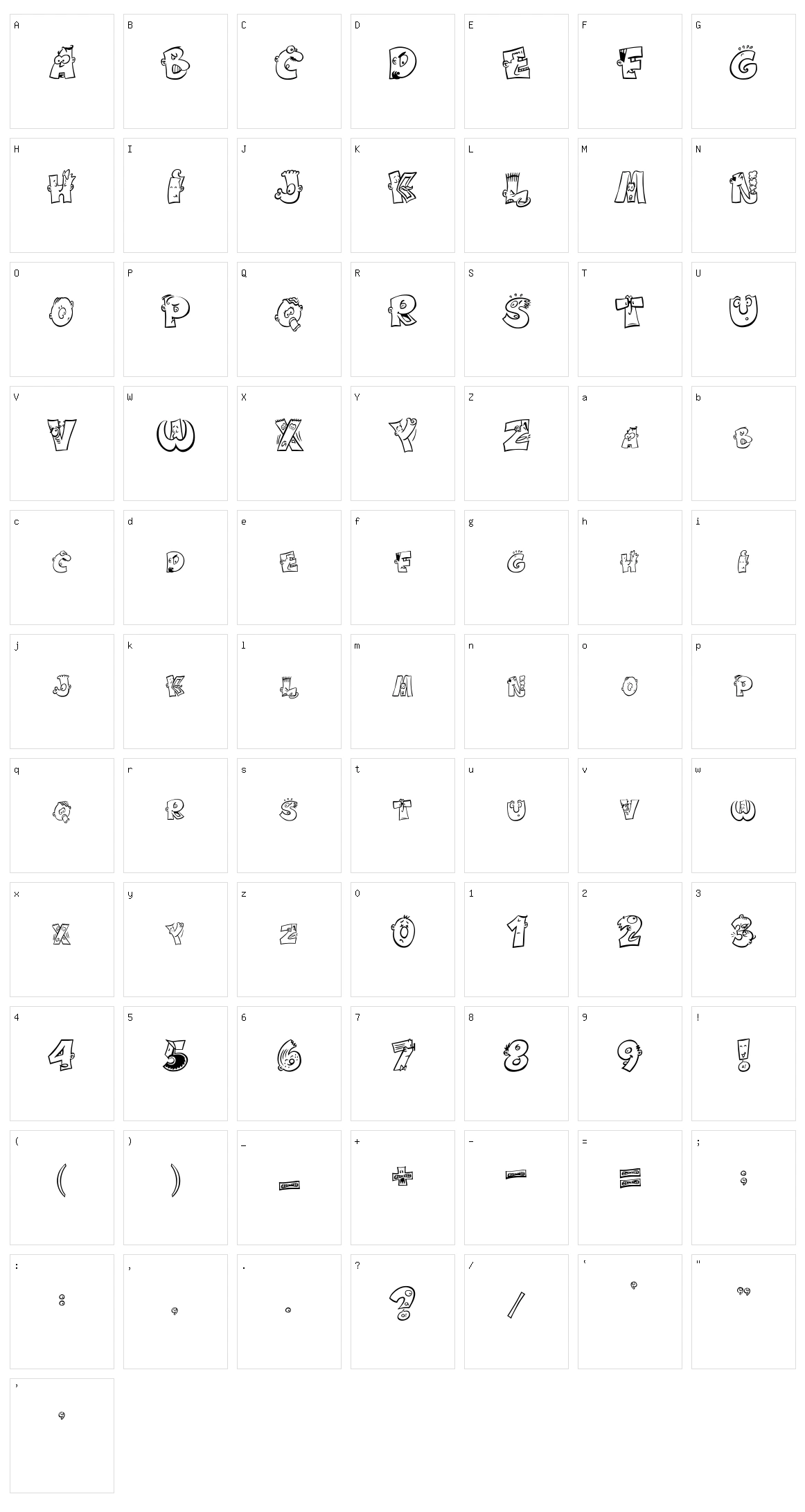
The free font Caricature is carefully designed by Magix.L, showcasing a thoughtful balance of creativity and usability and falls under the Cartoon font style. When you download the ZIP file, it contains only 58.81 KB of font files, making it lightweight and quick to download. Please review the license details below to understand permitted usage and distribution rights. If license information is not available, we recommend using this font for personal projects only or contacting the author directly for commercial usage permissions.